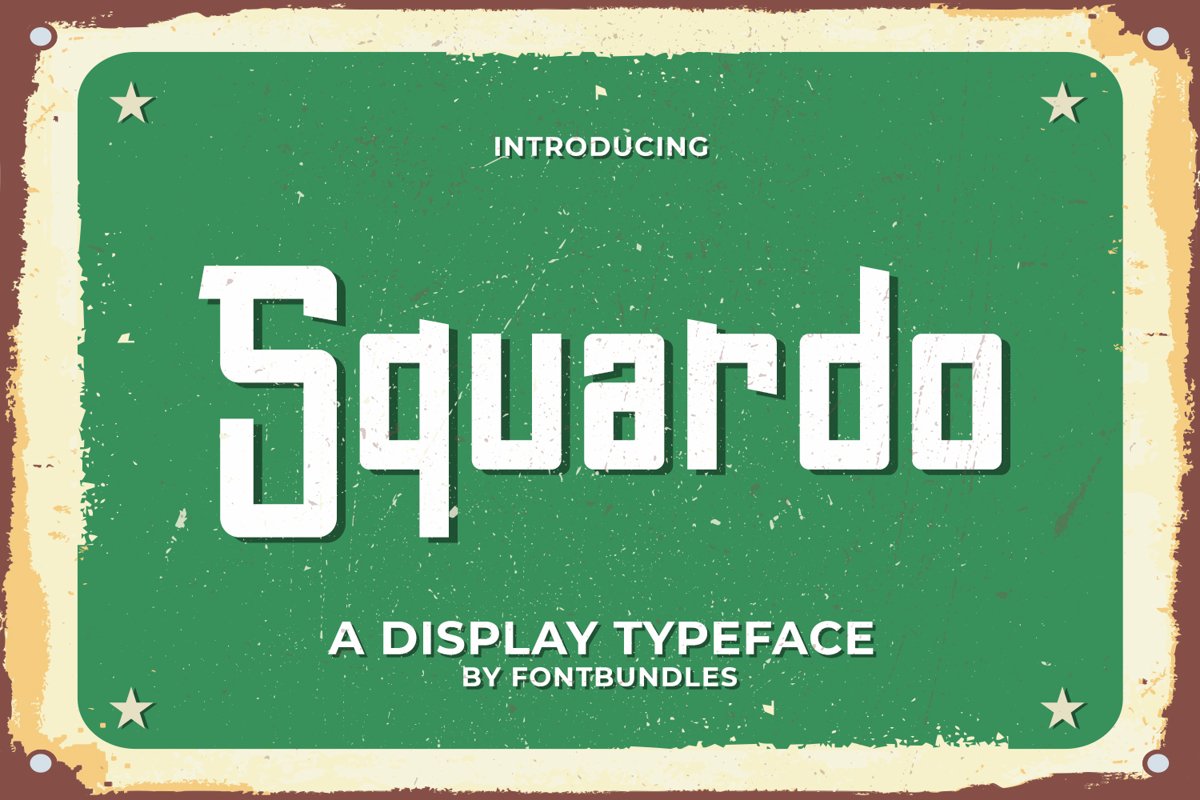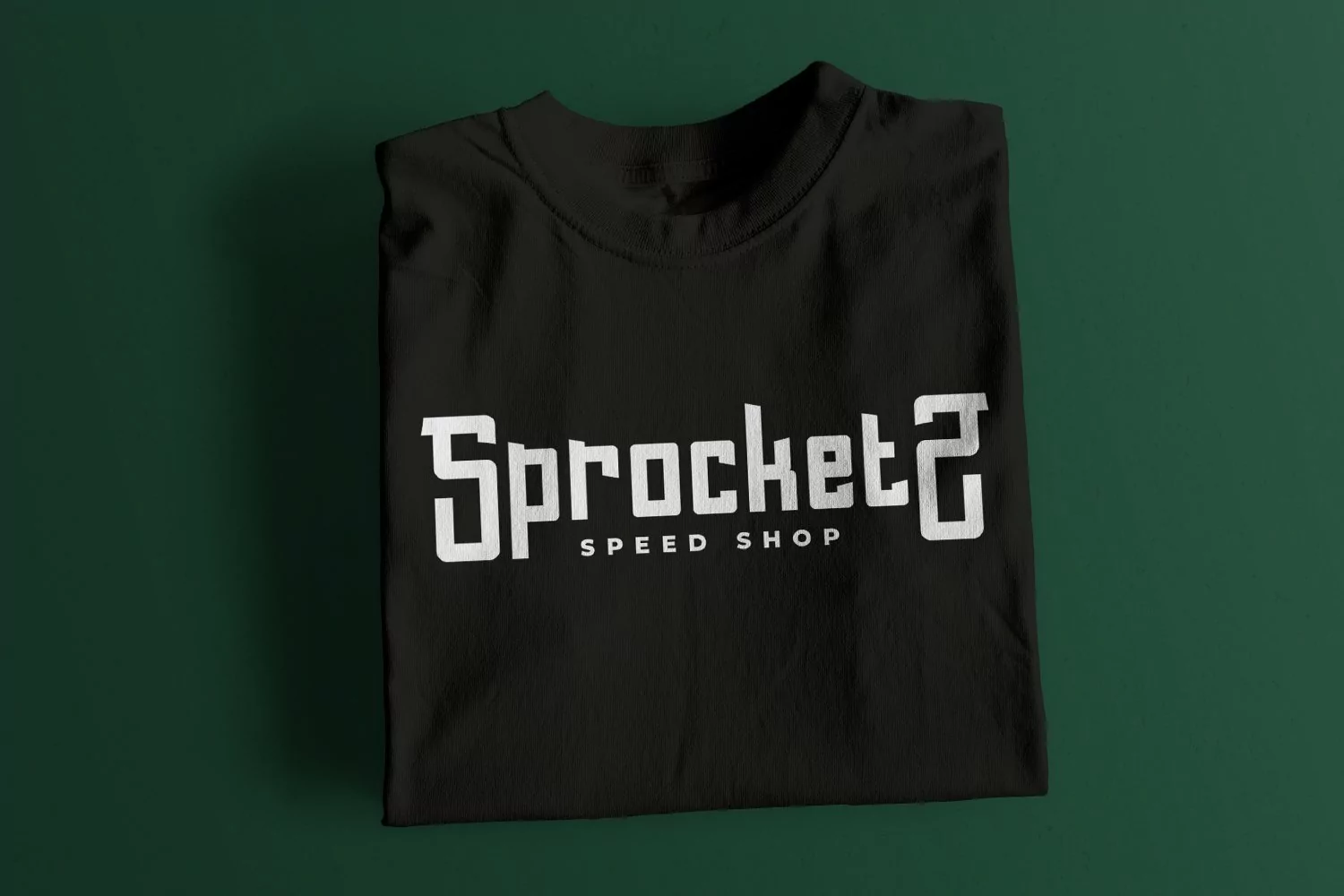
Squardo is a display typeface. Perfect for display, quotes, logo, logotype, emblem, badges, t-shirt print, branding, packaging, merchandise, and many more.